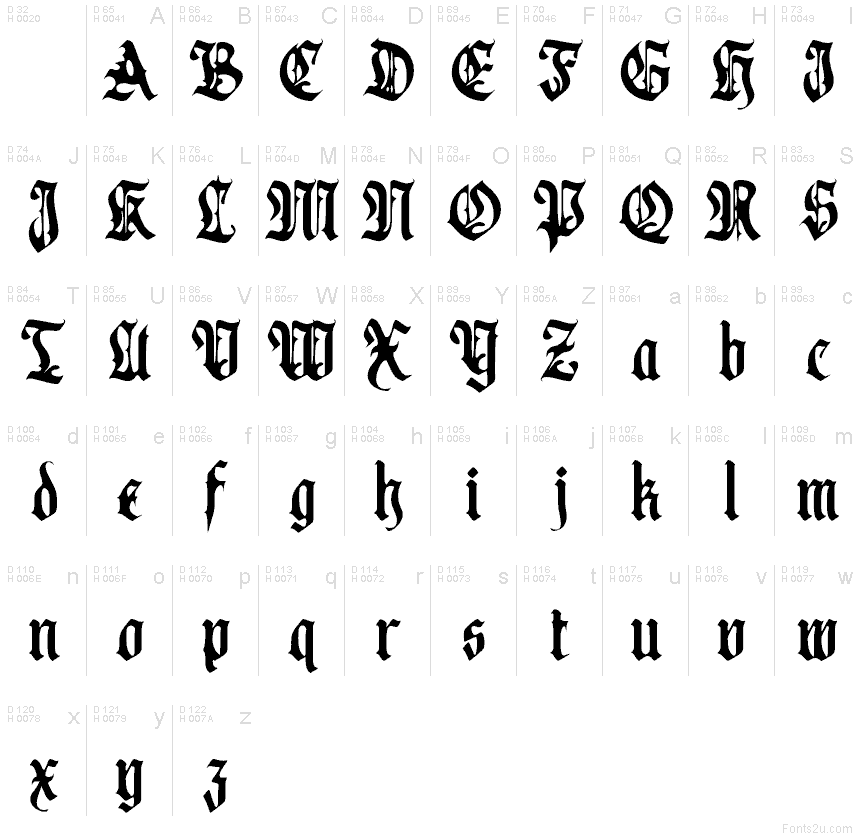
CS Mabel Drawn font by Craft Supply Co. is a free medieval gothic display font. Part of the CS Mabel family, it stands out with barbed, chisel-cut strokes, swollen verticals, and inky, slightly rough contours that feel hand-rendered rather than sterile. The tight rhythm and dramatic contrast carve a dark, ceremonial presence while keeping letterforms coherent and punchy at headline sizes.
Using CS Mabel Drawn, titles snap with a ritual edge—great for metal band marks, craft beer labels, renaissance festival posters, fantasy book covers, game titles, and tattoo-inspired apparel. This free font loves scale; set it big and give it a hair of tracking to let the spurs breathe. For copy, pair with a quiet geometric sans from the CS Mabel family or another neutral sans to balance the texture.